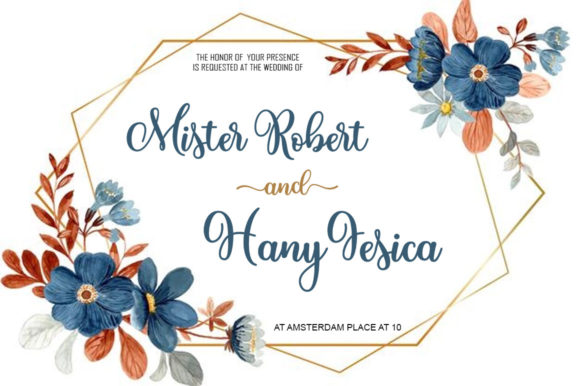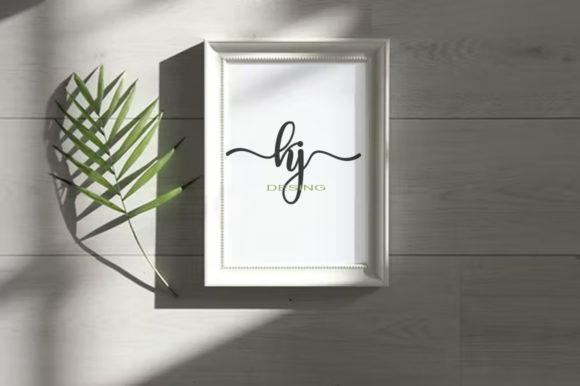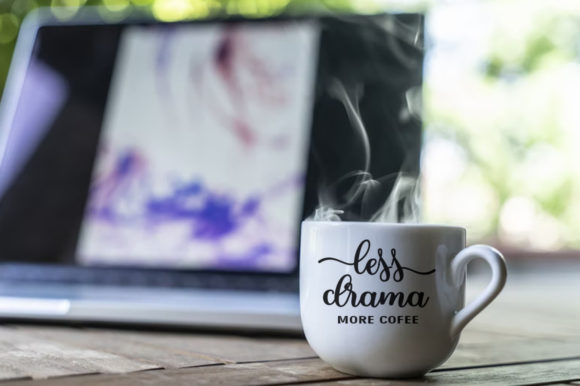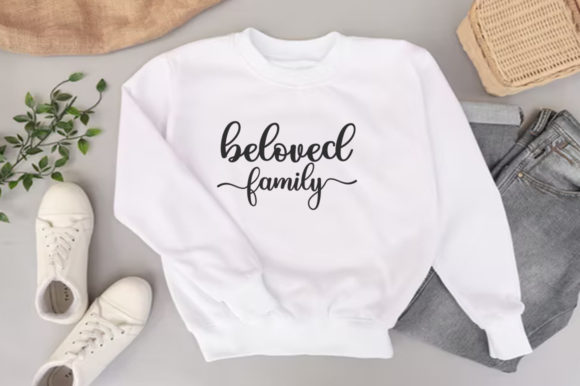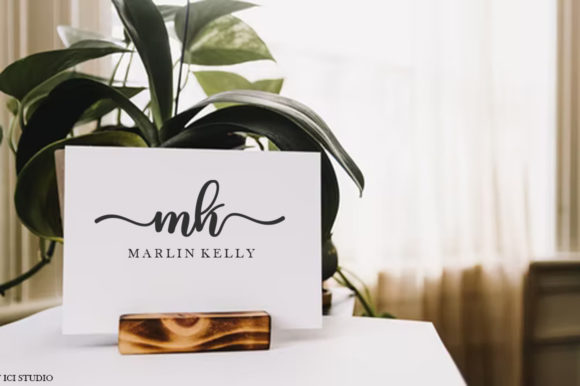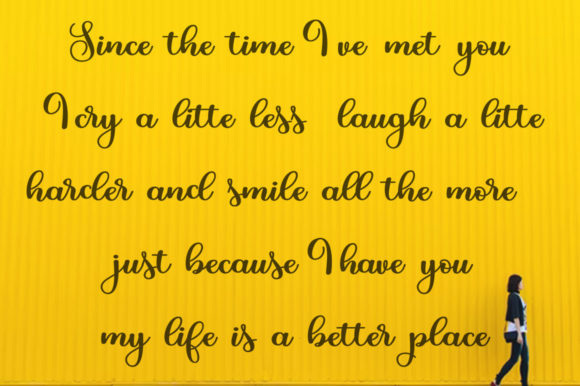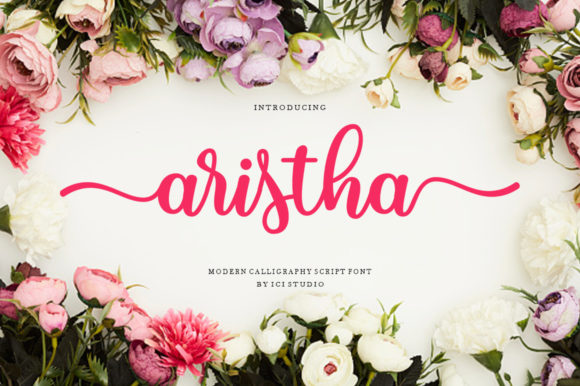
Introducing Aristha Font: The Ultimate Romantic Calligraphy Typeface
Are you looking for a font that adds a touch of luxury and romance to your design projects? Look no further than Aristha Font, a beautiful calligraphy typeface that is sure to make your designs stand out. With its sweet and elegant characters that dance along the baseline, Aristha Font is the perfect choice for designers and crafters who want to add a touch of sophistication to their work.
What Makes Aristha Font So Special?
Aristha Font is a romantic and sweet calligraphy typeface that is designed to add a luxury spark to any design project. Its unique characters are carefully crafted to dance along the baseline, creating a beautiful and elegant effect that is sure to impress. Whether you’re working on a wedding invitation, a branding project, or a packaging design, Aristha Font is the perfect choice.
Aristha Font is perfect for designers and crafters who want to add a touch of elegance and sophistication to their work. Whether you’re working on a digital project or a physical craft, Aristha Font is the perfect choice. Its beautiful characters and ligatures make it ideal for use in a variety of design projects, including:
- Digital graphics and social media assets
- Physical crafts, such as scrapbooking and card making
Tips for Using Aristha Font
Here are a few tips for using Aristha Font in your design projects:
- Use Aristha Font as a headline font to add a touch of luxury and elegance to your design.
- Pair Aristha Font with a simpler font to create a beautiful contrast.
- Don’t be afraid to get creative and try new things – Aristha Font is a versatile font that can be used in a variety of ways.
Why Choose Aristha Font?
There are many reasons why Aristha Font is a great choice for designers and crafters. Here are just a few:
- Unique and elegant characters that add a touch of luxury to any design.
- PUA encoded for easy access to glyphs and ligatures.
- Perfect for use in a variety of design projects, from digital graphics to physical crafts.
- Easy to use and versatile.
In conclusion, Aristha Font is a beautiful and elegant calligraphy typeface that is perfect for designers and crafters who want to add a touch of luxury and romance to their work. With its unique characters, PUA encoding, and versatility, Aristha Font is a great choice for anyone looking to create stunning designs. So why wait? Download Aristha Font today and start adding a touch of elegance and sophistication to your design projects!